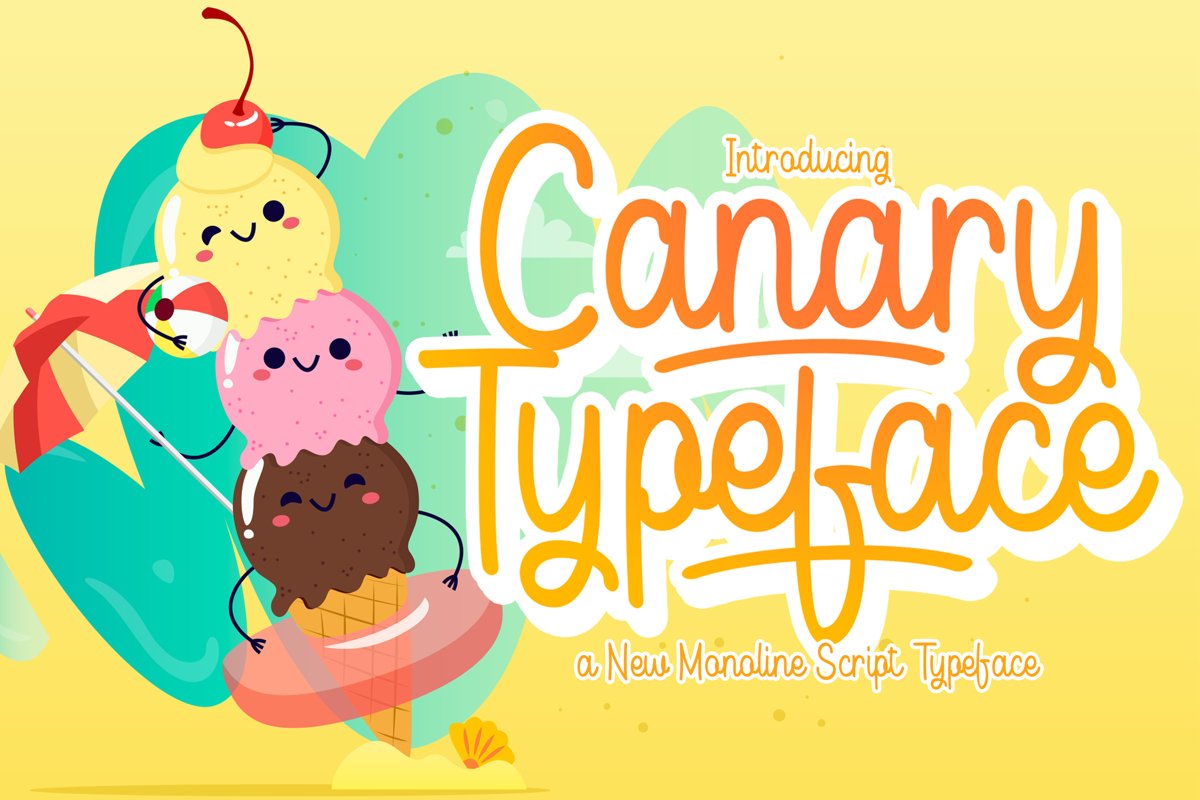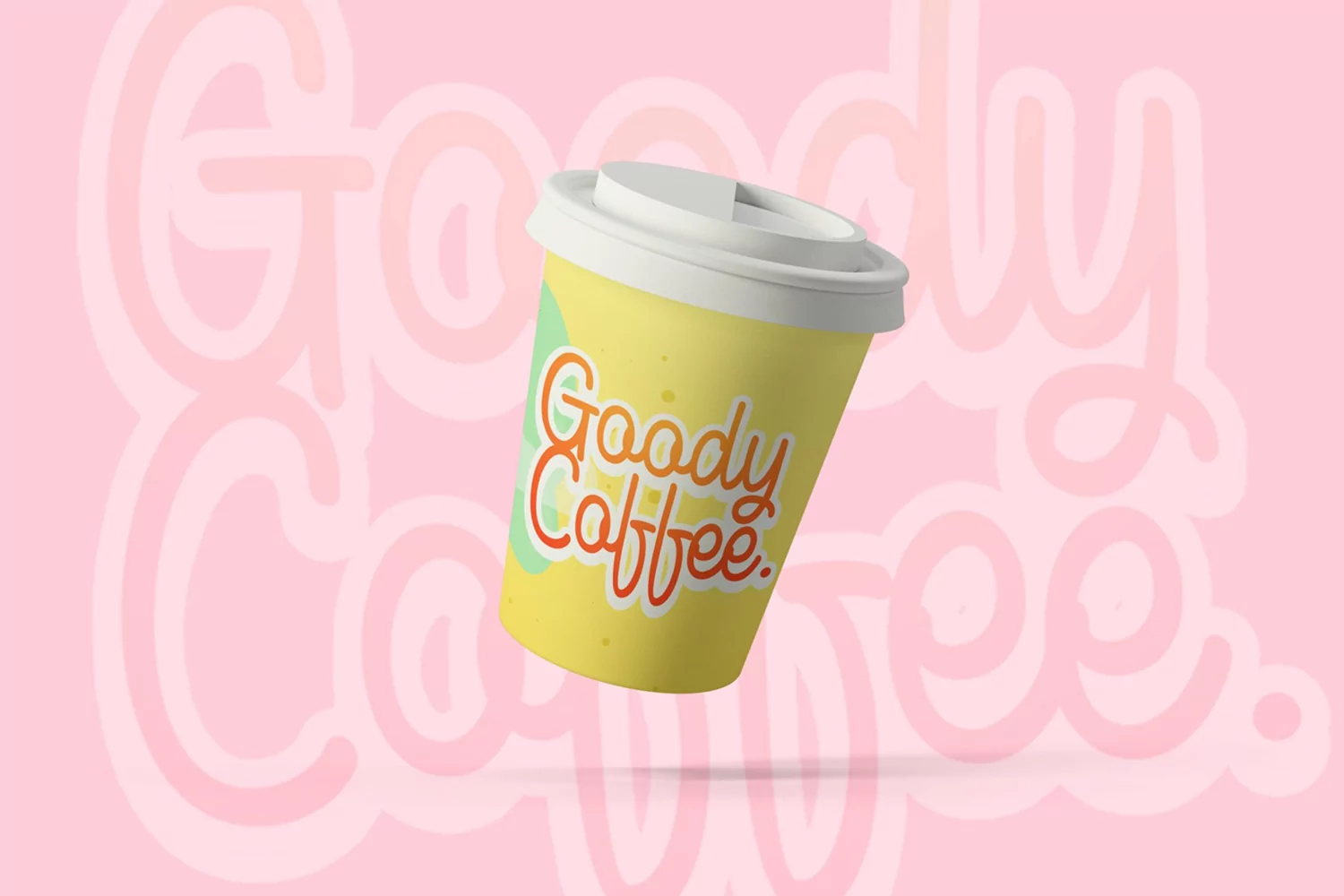
Canary is a new monoline script typeface. Perfect for display, poster, quotes, film, craft needs, book cover, business card, packaging, merchandise, branding, logo, logotype, header, title, and many more.